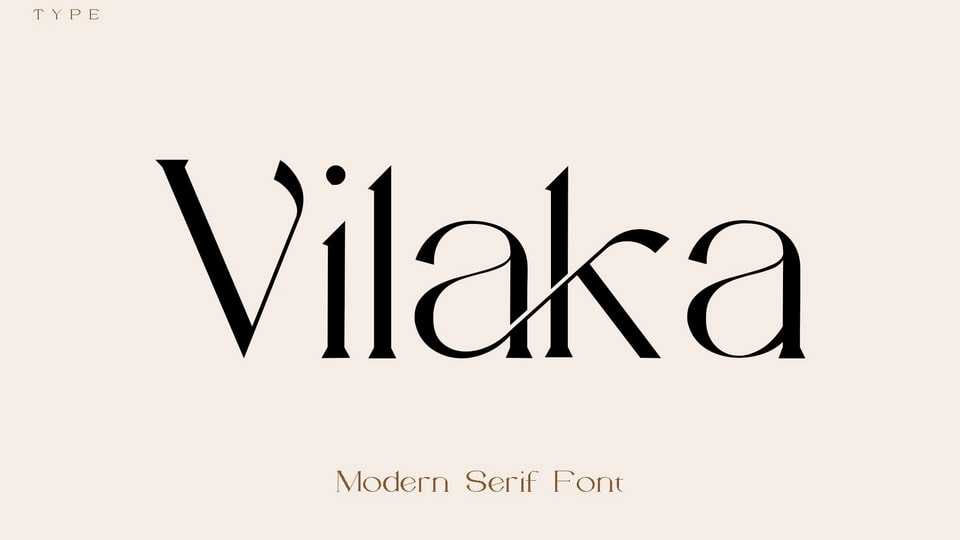
Download Vilaka font, a contemporary typeface known for its elegant and sophisticated design. It features a balanced combination of sharp and smooth elements, making it versatile for various design projects.